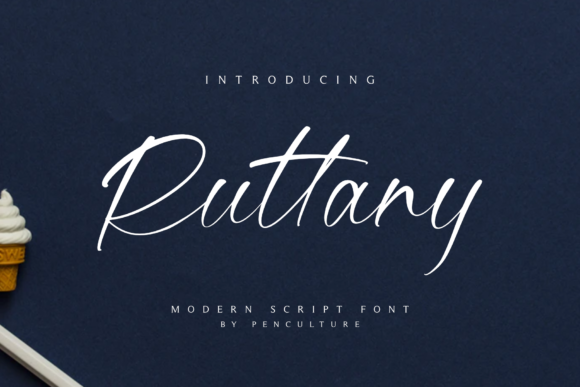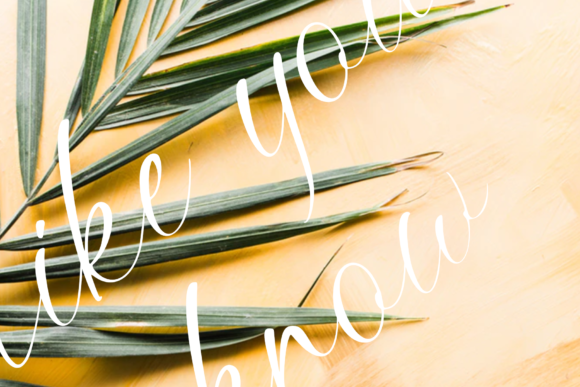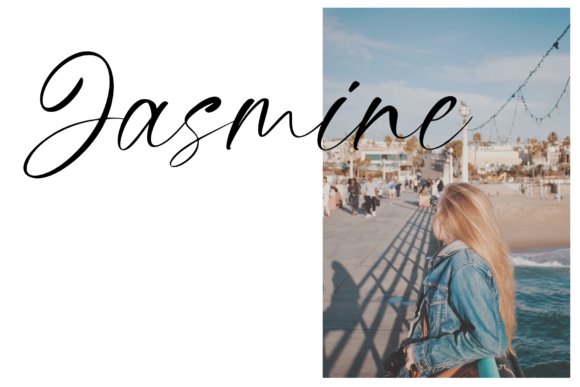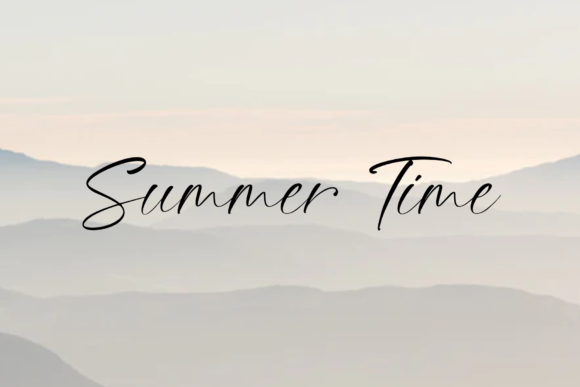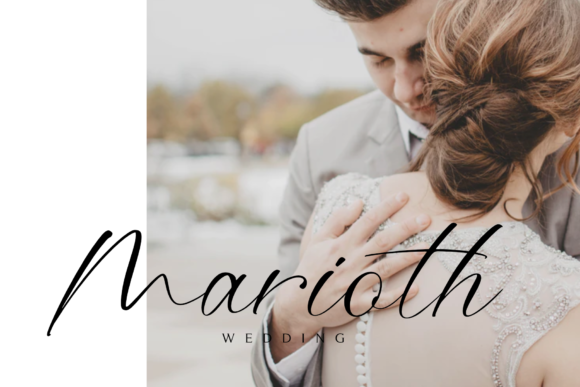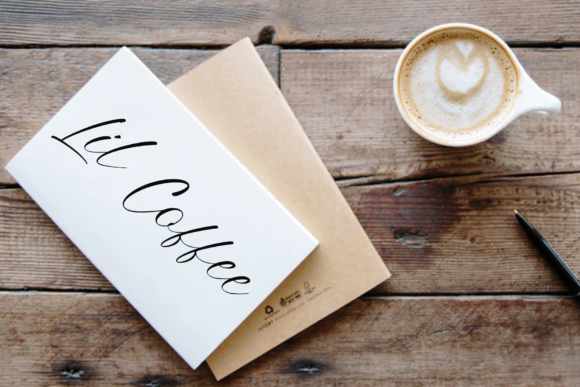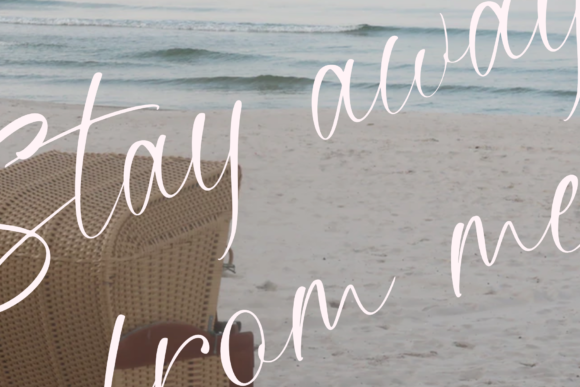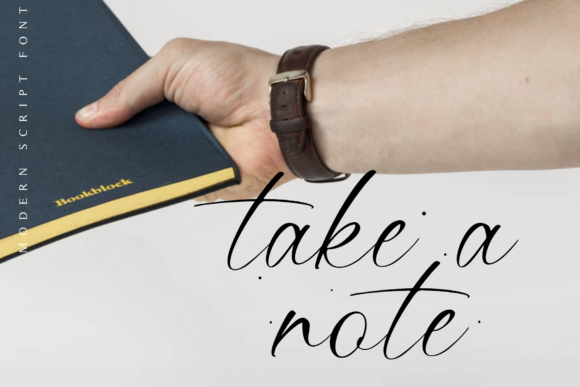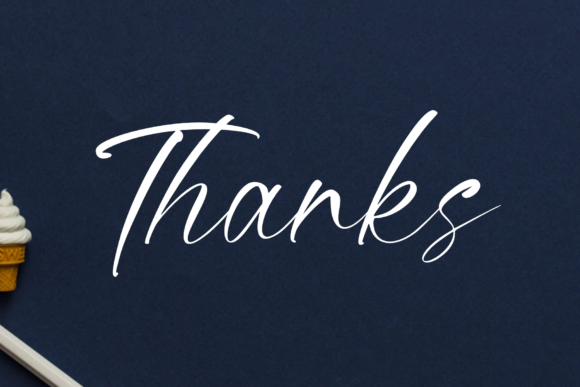
Ruttany Font
About Ruttany Font
Ruttany is a modern script font, created by using a brush pen. Clean and elegant, this font is the perfect fit for all of your logos, branding, social media, and crafty DIY projects.